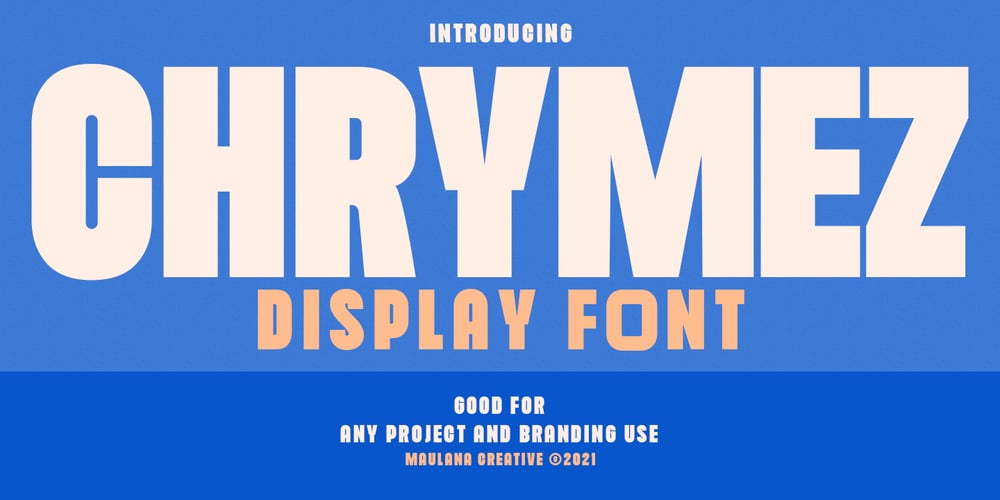
Chrymez Font Font Family was designed by Gilang Maulana and published by Maulana Creative. Chrymez Font contains 1 styles and family package options. Chrymez is a modern sans serif display font. With Bold stroke, fun character with adding alternates “O”. To give you an extra creative work. Chrymez font support multilingual more than 100+ language. This font is good for logo design, Social media, Movie Titles, Books Titles, a short text even a long text letter and good for your secondary text font with signature script typeface. Make a stunning work with Chrymez font. Cheers, MaulanaCreative